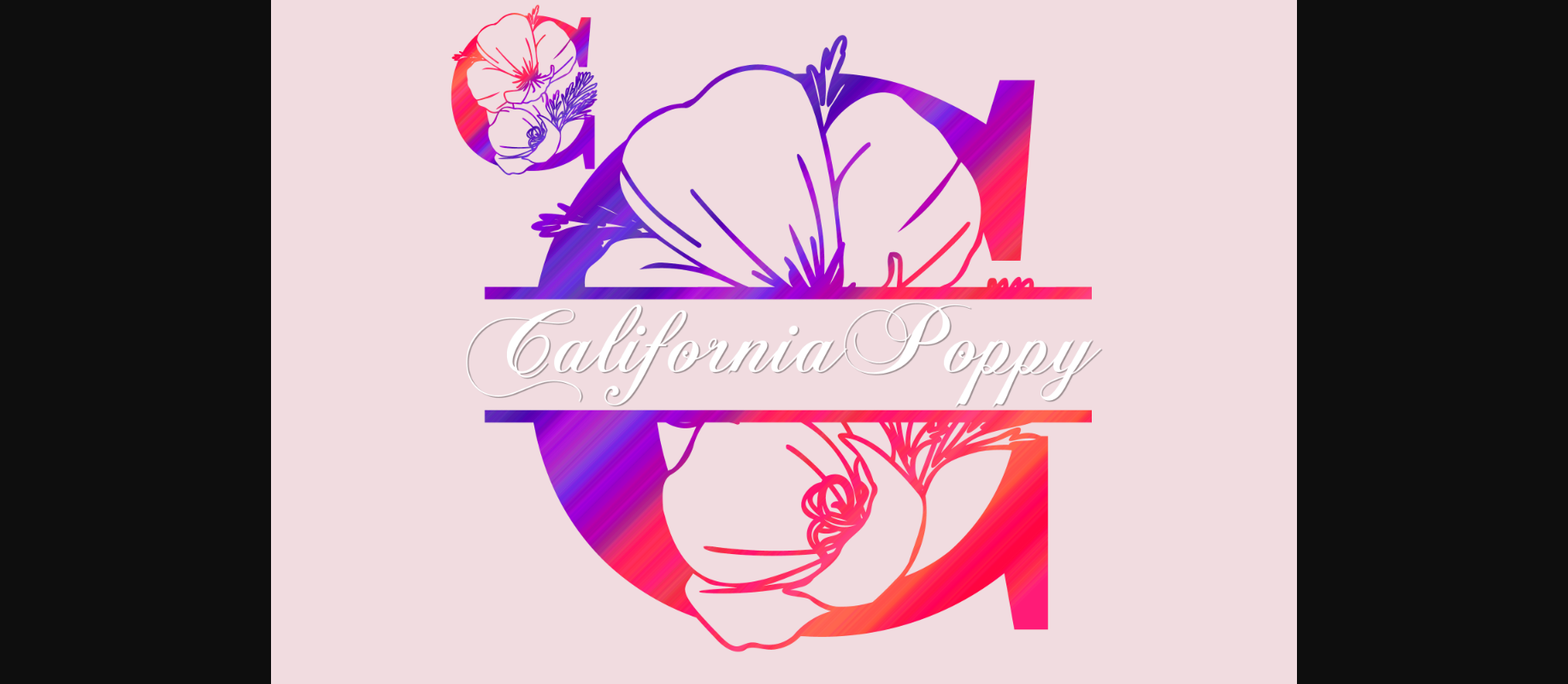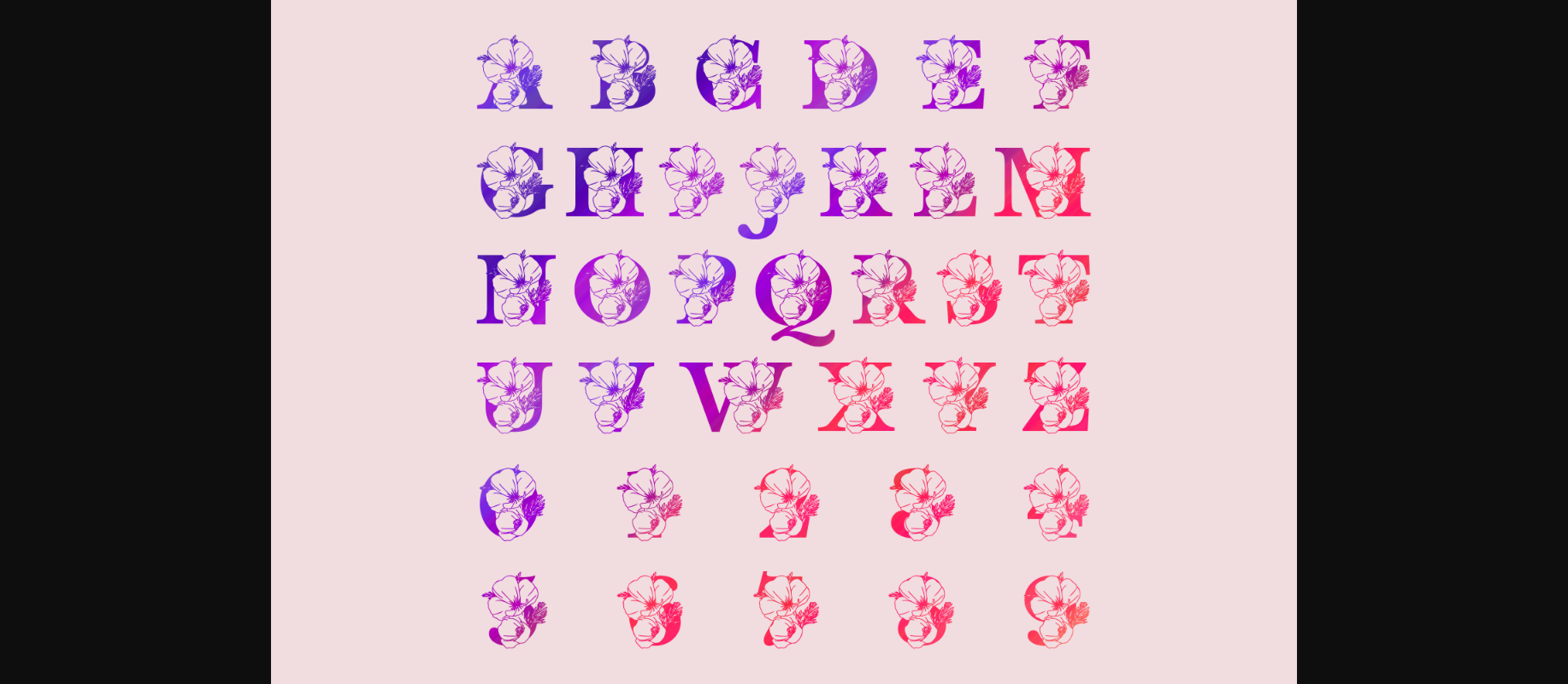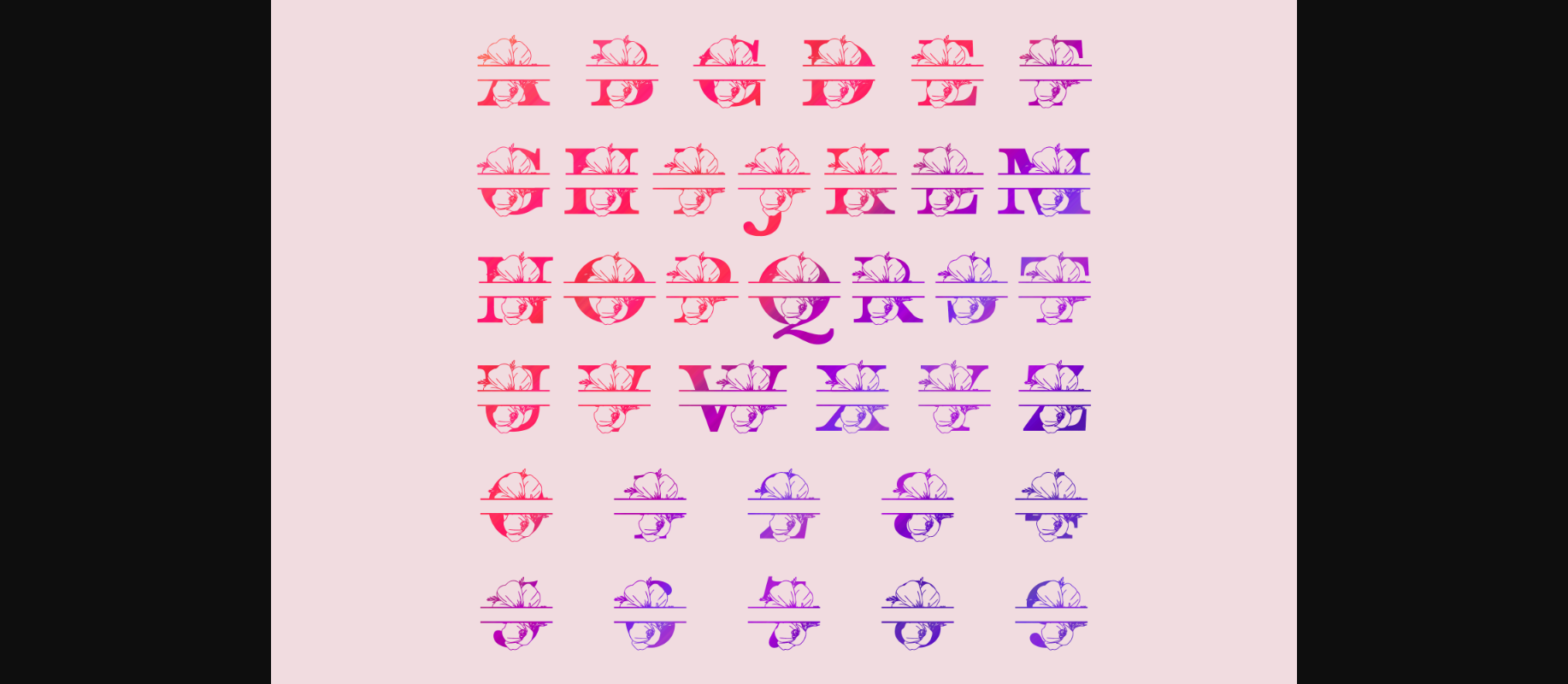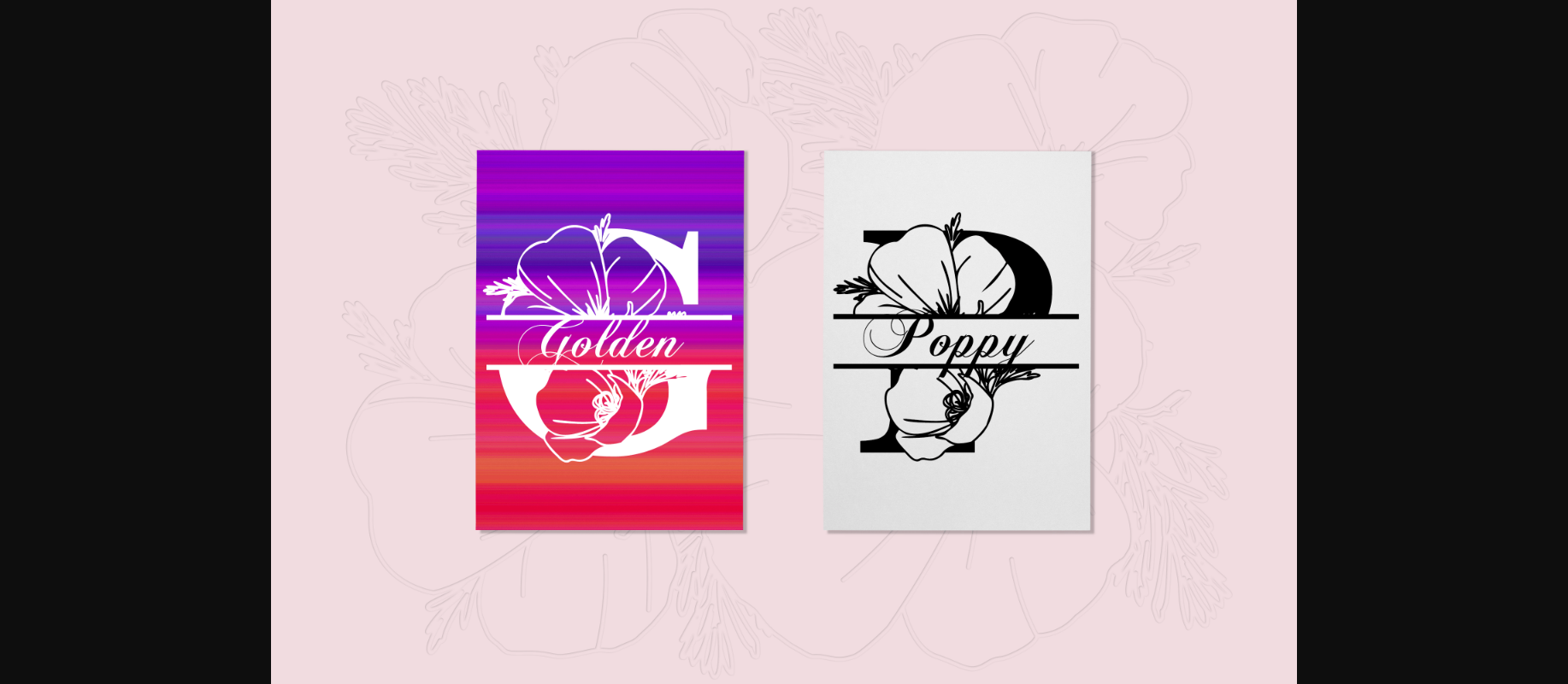
California Poppy Split Font
About California Poppy Split Font
California Poppy Split is an elegant botanical decorative font consisting of two styles (regular & split.) This font is ideal for adding special decoration to your crafts. Whether you use it for custom designs, DIY crafts, or just any creation that requires a lovely touch, this font will be an amazing choice!